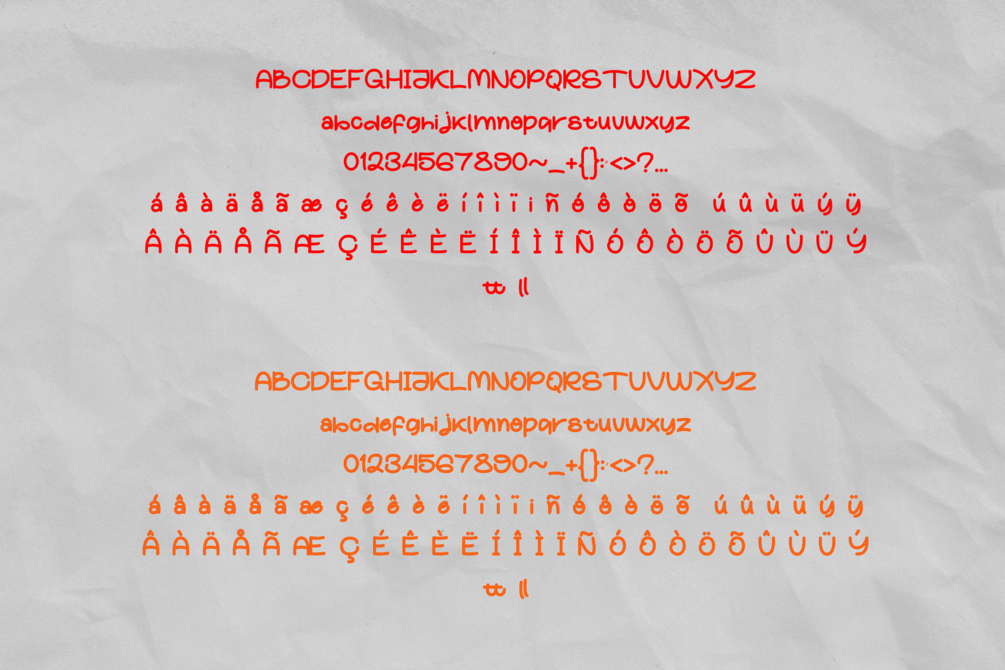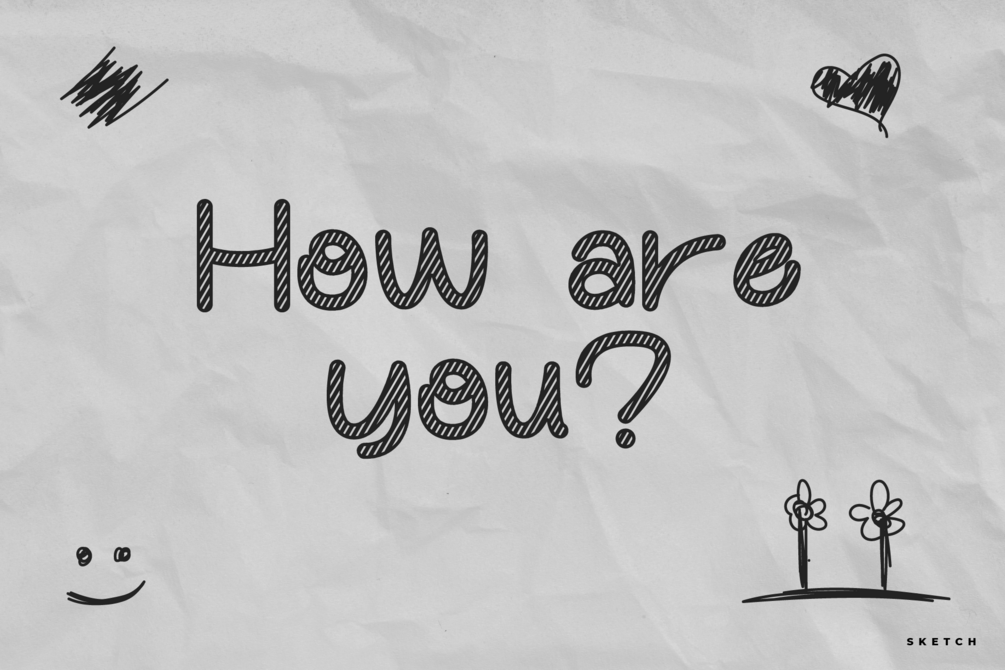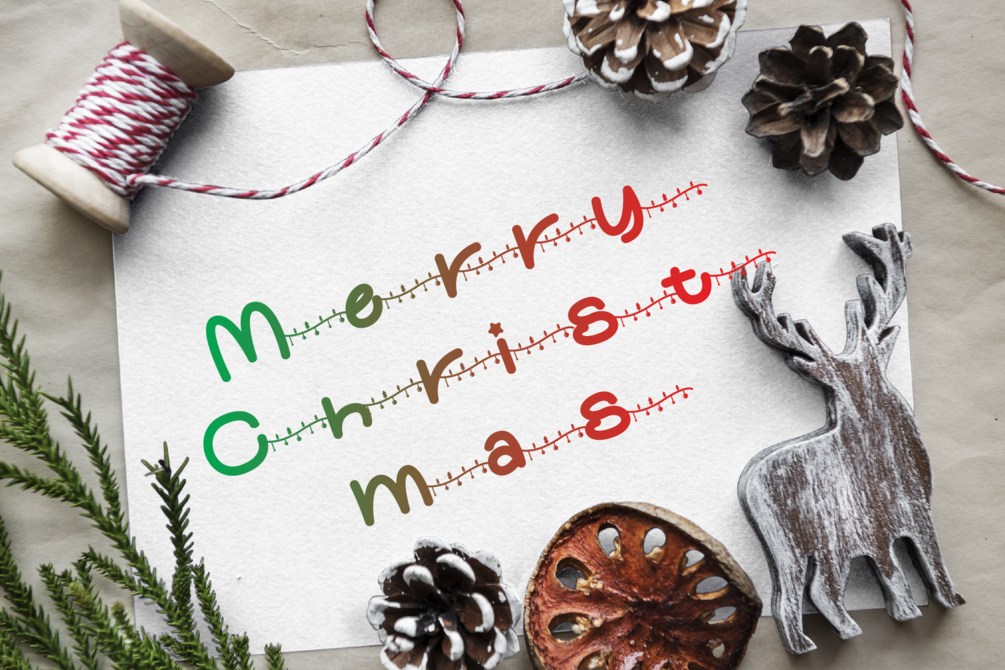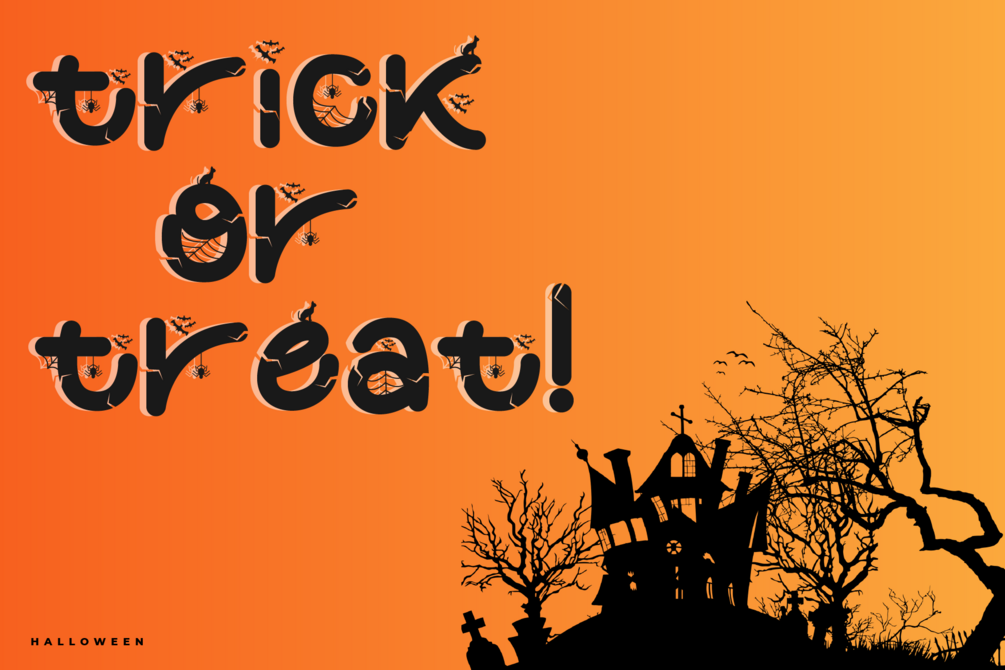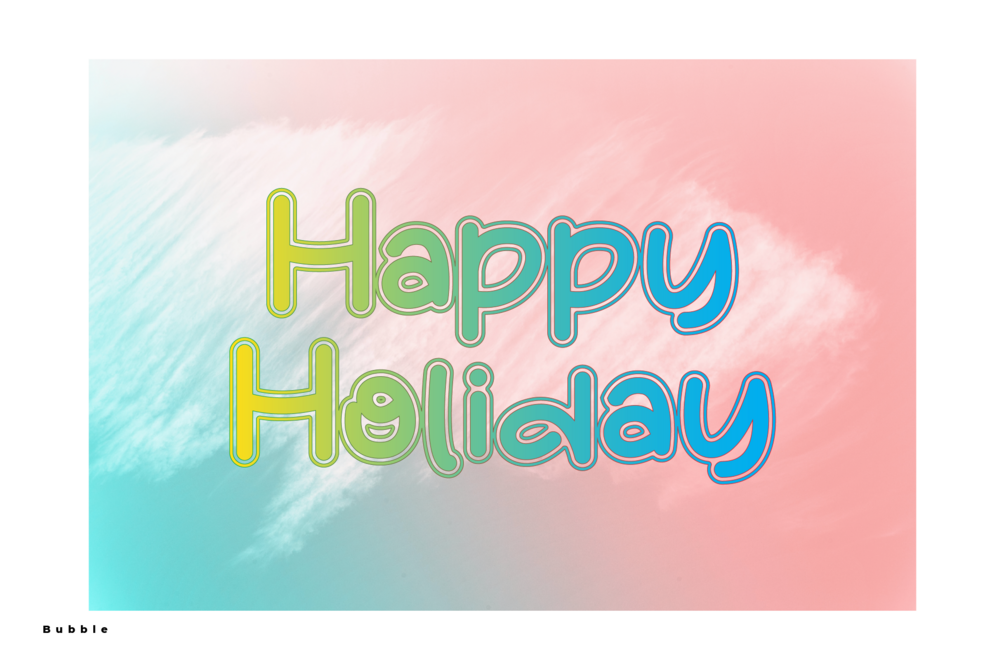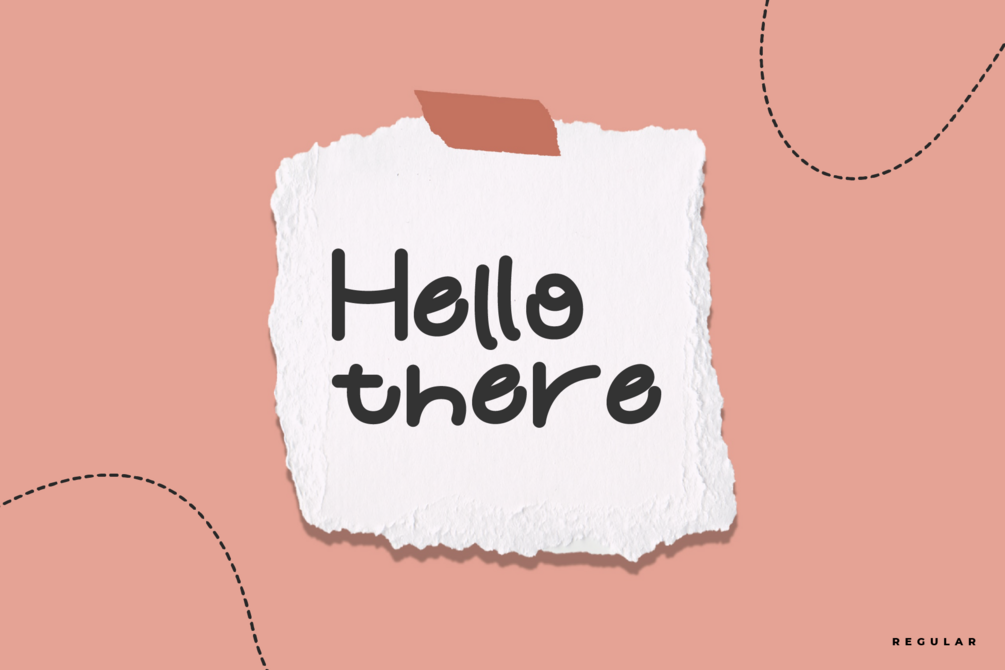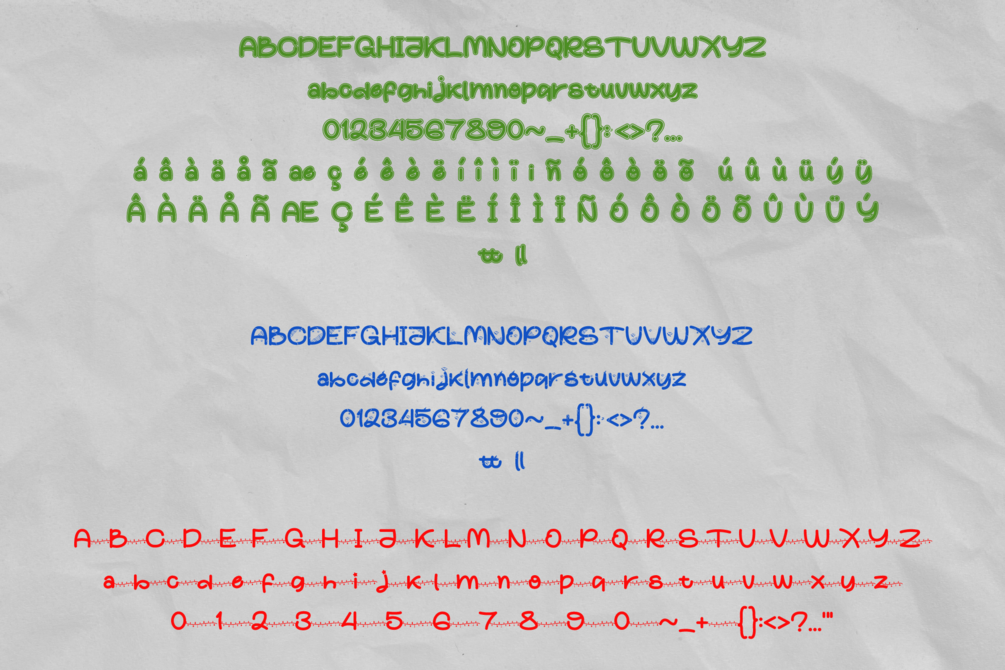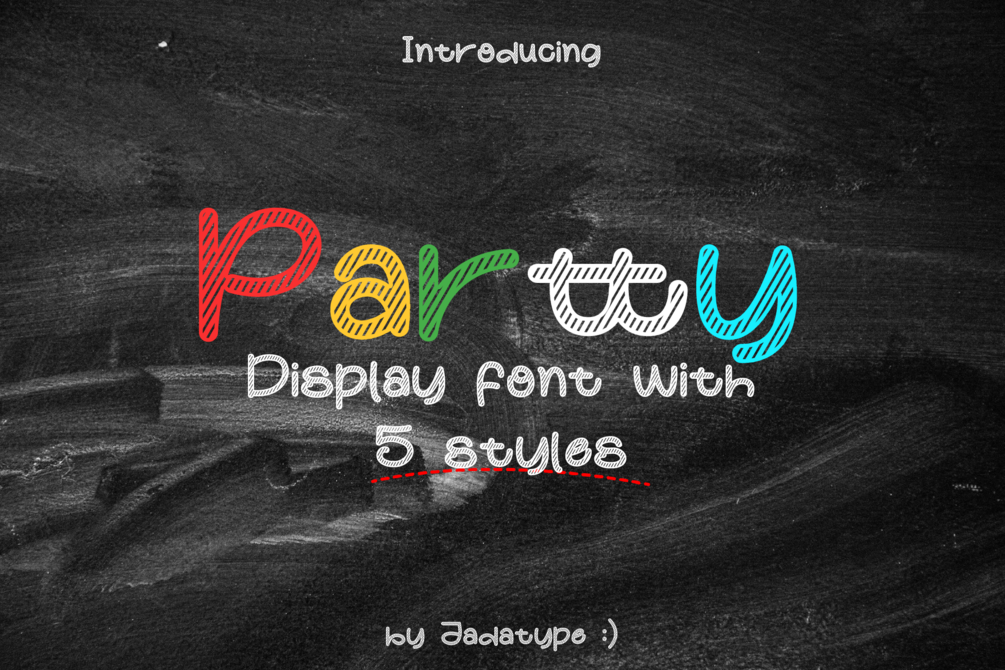
Partty Font
Tosten is a Display font that came with Blackletter style. Suitable for product, Branding, social media, logotype and so on. contains standard English letters, numbers, punctuation, and several accents that support multilingualism.